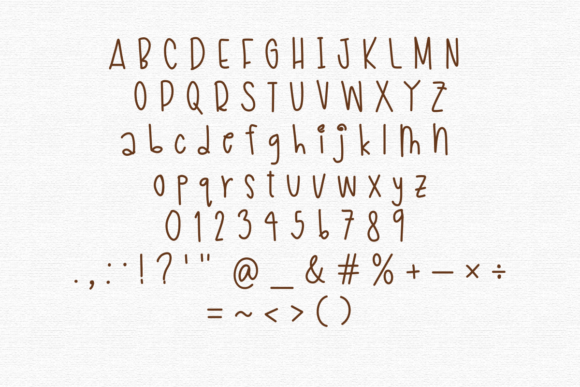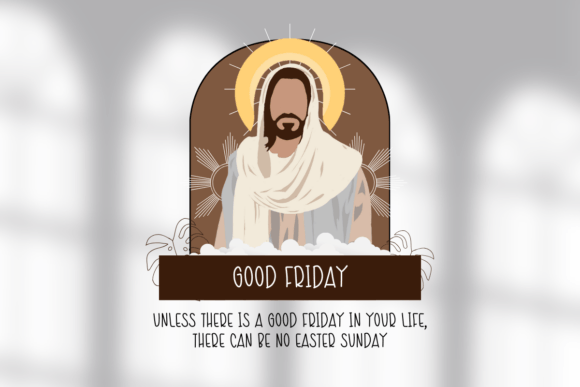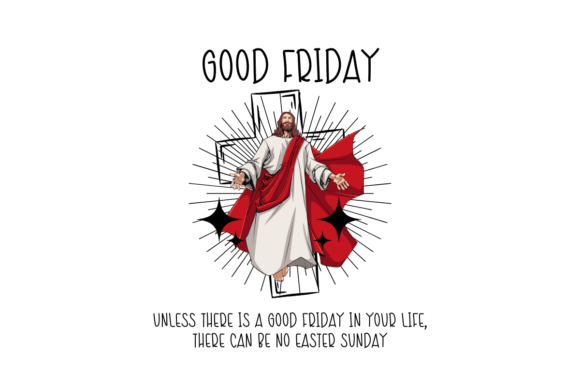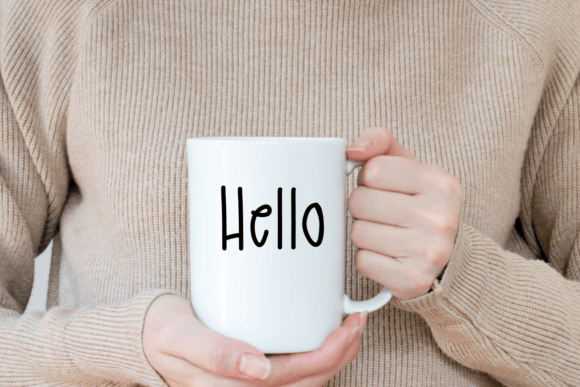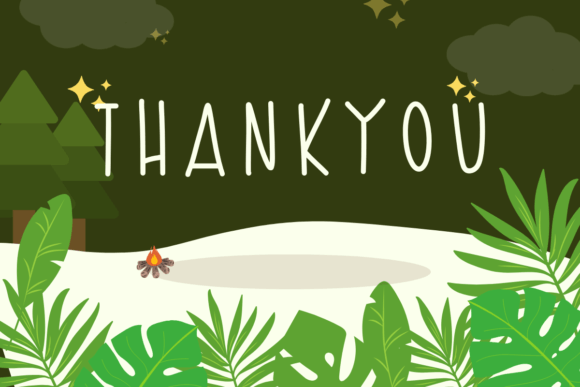
Good Friday Font: Elevate Your Designs with a Touch of Elegance
Are you a designer, crafter, or DIY enthusiast looking for a unique and elegant font to elevate your Good Friday designs? Look no further! The Good Friday Font is a stunning display font that can add a touch of sophistication and meaning to your creations. In this article, we’ll explore the versatility of the Good Friday Font and provide you with inspiring ideas on how to use it for various projects.
What is Good Friday Font?
The Good Friday Font is a beautiful display font designed to commemorate the significance of Good Friday. Its elegant and refined style makes it perfect for creating visually appealing designs that convey a sense of reverence and respect. This font is not only ideal for Good Friday-themed projects but can also be used for various other designs, such as everyday notes, diaries, and greeting cards.
Uses of Good Friday Font
The Good Friday Font is incredibly versatile and can be used for a wide range of projects, including:
- Notes and Diaries: Add a touch of elegance to your notes and diaries with the Good Friday Font. It’s perfect for jotting down inspirational quotes, prayers, or personal reflections.
- Greeting Cards: Create stunning greeting cards for Good Friday, Easter, or other special occasions using this beautiful font. You can add personalized messages, quotes, or scripture to make them extra special.
- Banners and Signs: Use the Good Friday Font to create eye-catching banners and signs for church events, Good Friday services, or Easter celebrations.
- Mugs and Water Bottles: Design inspiring and meaningful mugs and water bottles with the Good Friday Font. Perfect for personal use or as gifts for friends and family.
- Shirts and Apparel: Create unique and stylish shirts, hoodies, or tote bags with the Good Friday Font. Great for church groups, youth organizations, or as a personal statement piece.
- Stationery and Paper Crafts: Add a touch of sophistication to your stationery, journals, or paper crafts with the Good Friday Font. Use it for creating custom paper, stickers, or gift tags.
- Social Media Posts: Elevate your social media posts with the Good Friday Font. Share inspiring quotes, scripture, or messages with your followers using this beautiful font.
Why Choose Good Friday Font?
The Good Friday Font offers several benefits that make it an excellent choice for designers and crafters:
- Elegant and Refined: The Good Friday Font exudes elegance and refinement, making it perfect for creating sophisticated designs.
- Versatile: This font can be used for a wide range of projects, from notes and diaries to banners and social media posts.
- Meaningful: The Good Friday Font is a thoughtful and meaningful way to express your faith and values through your designs.
- Easy to Use: This font is easy to read and works well in various design applications, making it a great choice for designers of all levels.
Tips for Using Good Friday Font
Here are some tips to help you get the most out of the Good Friday Font:
- Experiment with Sizes: Try different font sizes to create visual interest and hierarchy in your designs.
- Pair with Other Fonts: Combine the Good Friday Font with other fonts to create a unique and visually appealing design.
- Use in Combination with Images: Pair the Good Friday Font with relevant images or graphics to create stunning designs.
- Keep it Simple: Don’t be afraid to keep your design simple and elegant. The Good Friday Font is beautiful on its own, so let it shine!
In conclusion, the Good Friday Font is a beautiful and versatile display font that can elevate your designs and add a touch of elegance to your projects. Whether you’re a designer, crafter, or DIY enthusiast, this font is perfect for creating meaningful and visually appealing designs for Good Friday, Easter, or everyday use. So why not give it a try and see the difference it can make in your designs?